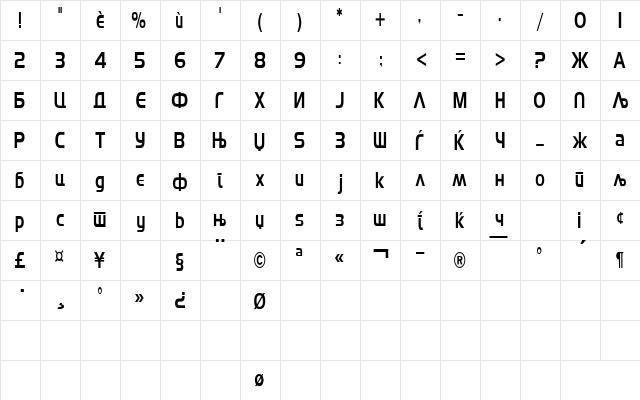
Macedonian Eco 70 Regular
Design Context for Macedonian Eco 70 Typeface
Macedonian Eco 70 is a composed and adaptable typeface that performs quietly and consistently across a wide range of design contexts.